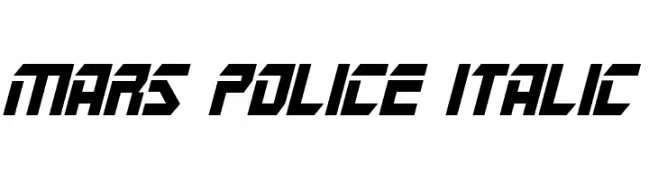
A bold, geometric font with thick strokes and sharp angles, perfect for impactful designs.
A bold, geometric font with a futuristic and angular design.
A bold, italicized font with sharp, angular edges and a futuristic style.